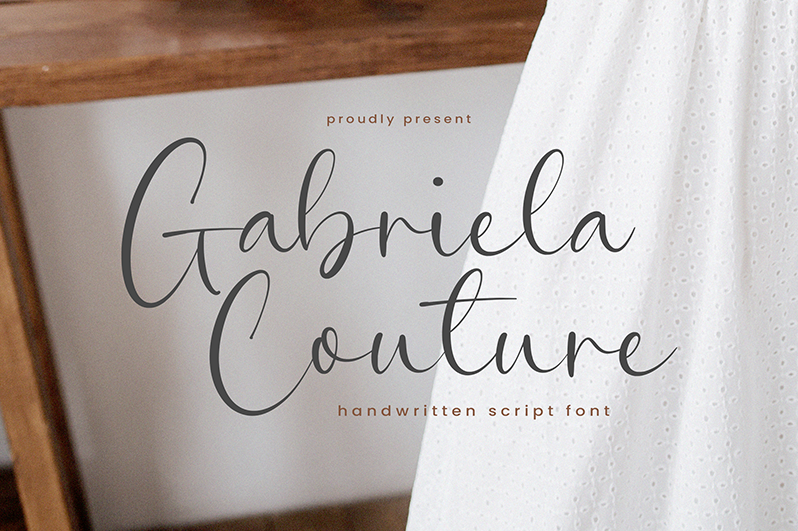
Font name: | Gabriela Couture |
Author: | Timur Type |
Note by Timur Type | |
Introduced by Timurtype Studio! Gabriela Couture is a Handwritten Script Font This font exudes elegance and refinement, capturing the essence of sophistication and high-end fashion. With its graceful and fluid letterforms, this font brings a touch of luxury to any design project. The handcrafted details and intricate brush strokes add an authentic handwritten feel, giving your designs a sense of charm. The Gabriela Couture font is perfect for creating branding materials, logos, and invitations that require a touch of class and style. Embrace the couture experience and elevate your designs with the exquisite Gabriela Couture handwritten script font These fonts include: OTF TTF WOFF Gabriela Couture Font also supports multilingualism. Gabriela Couture Font features premium : -Full Set of standard alphabet and punctuation By installing or using this font, you are agree to the Product Usage Agreement: � This demo font is ONLY for PERSONAL USE. NO COMMERCIAL USE ALLOWED! � Here is the link to purchase full version and commercial license: https://timurtype.com/product/gabriela-couture/ � For Corporate use you have to purchase Corporate license timurtype.studio@gmail.com More... |